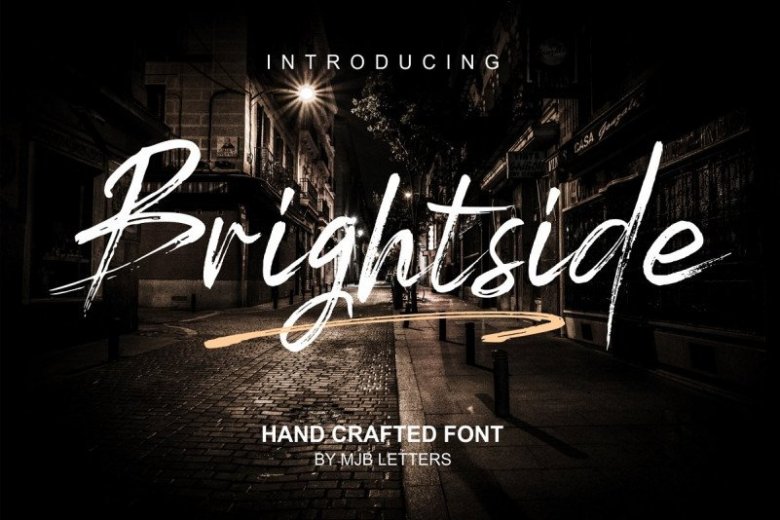
Brightside Brush Font
I am happy to present you a modern brush font. Handwriting style, it’s must be owned in your collection of designers. Introducing Brightside Font. Brightside Brush Font is an original textured brush font suitable perfectly for invitations, brand projects, logos, greeting cards, product packaging, posters blogs, everything including personal charm etc.
Brightside has a variety of handmade creating features in various styles, uppercase, lowercase, numbering, punctuation and equipped with several ligature.